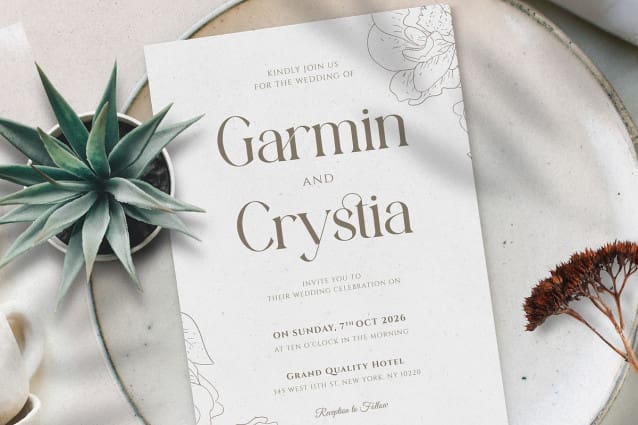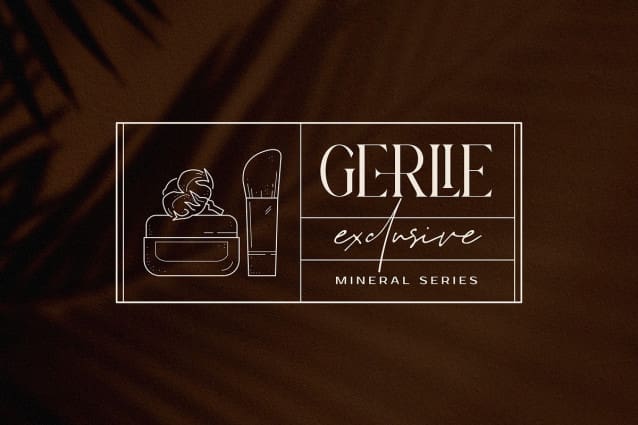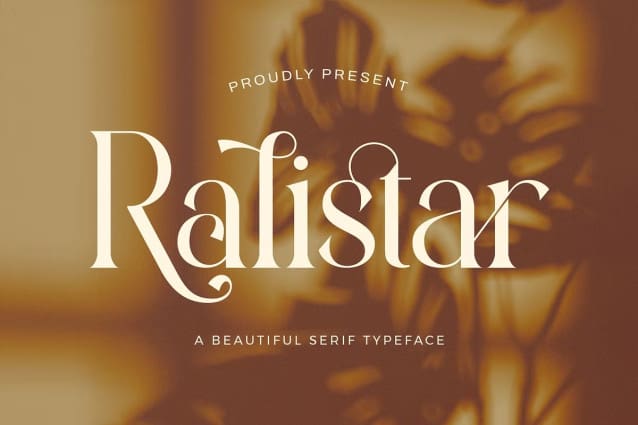
Ralistar Font
Ralistar Font – Stylish Ligature Typeface, inspired by the famous minimalist logo perfect for the purposes of designing templates, brochures, videos, advertising branding, logos and more.